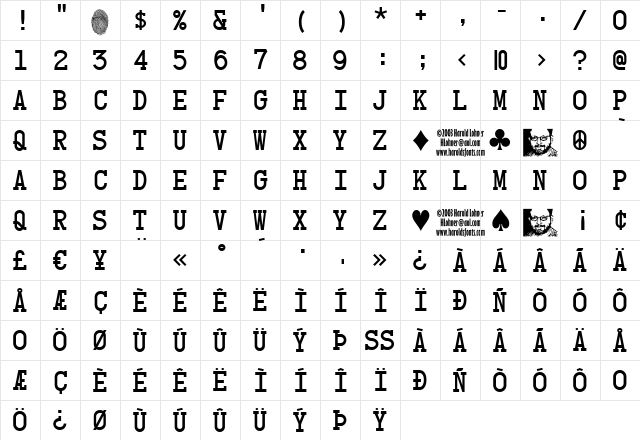
Card Characters Regular Free Font
Card Characters Regular
Design Context for Card Characters
Card Characters is a composed and adaptable typeface that performs quietly and consistently across a wide range of design contexts.